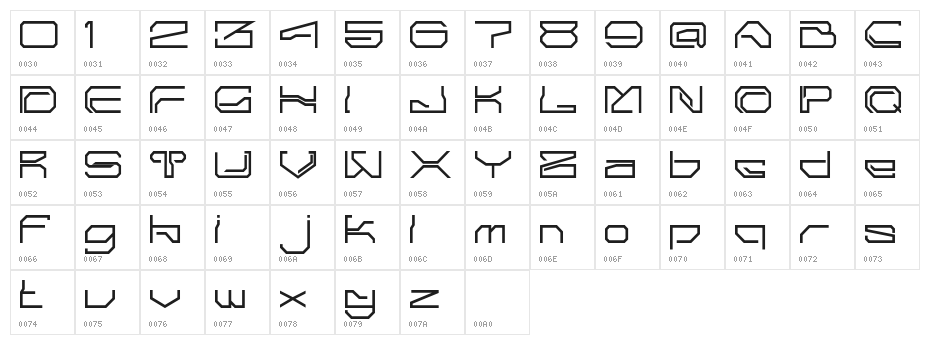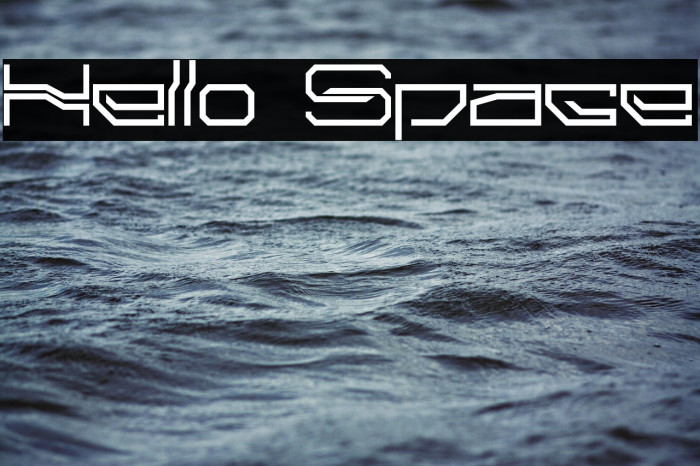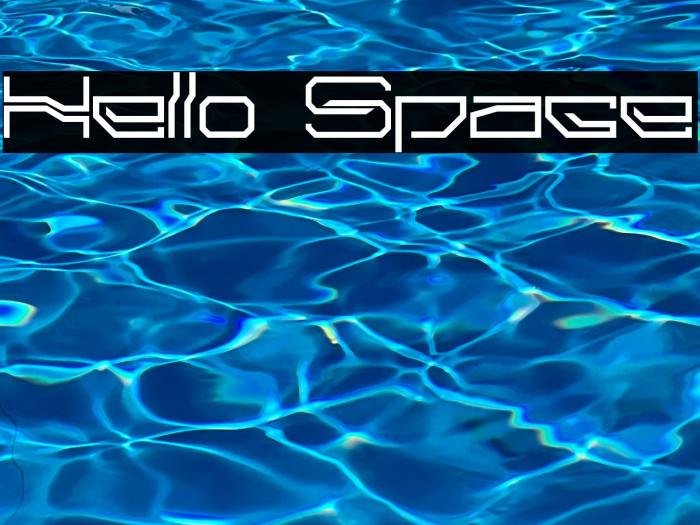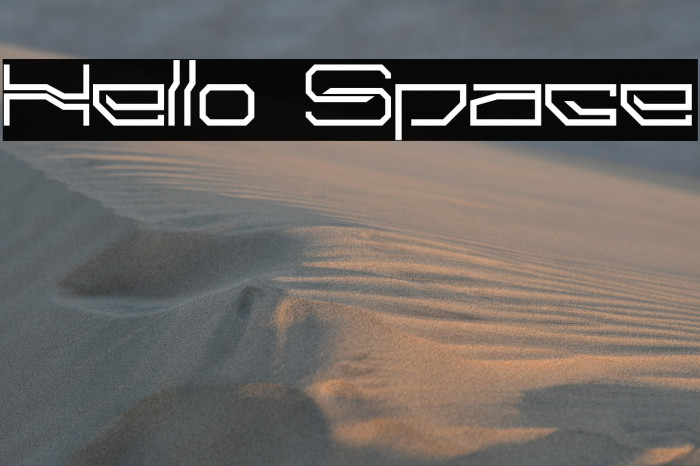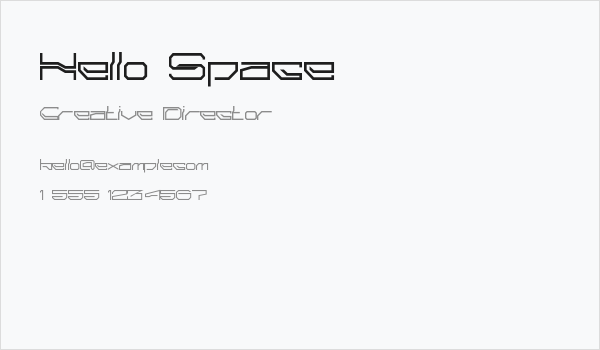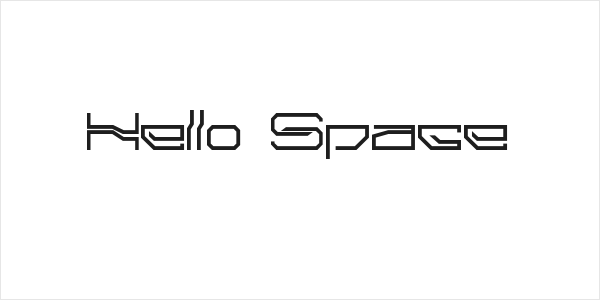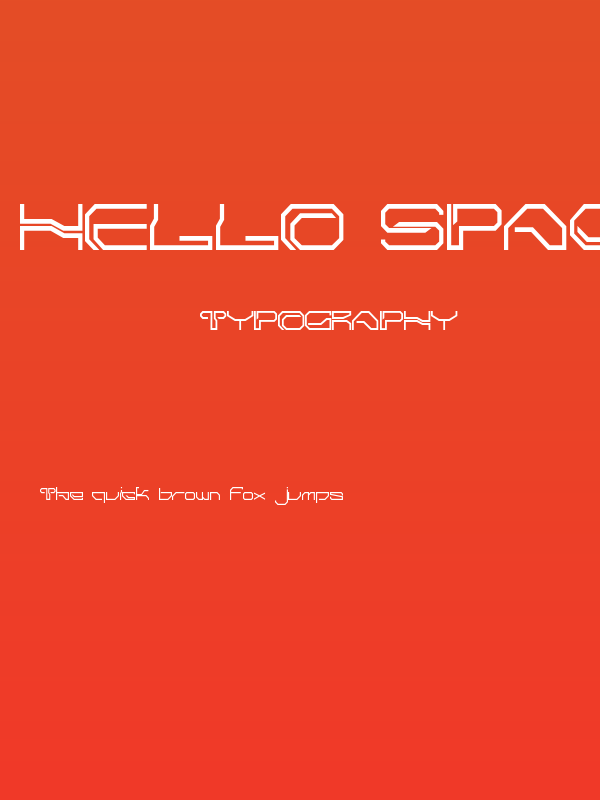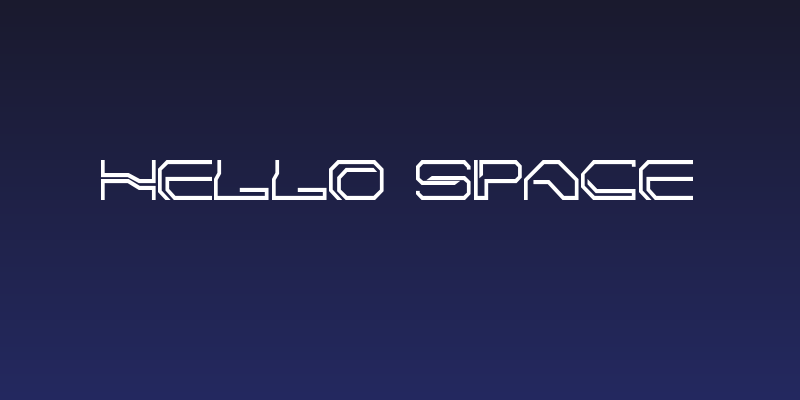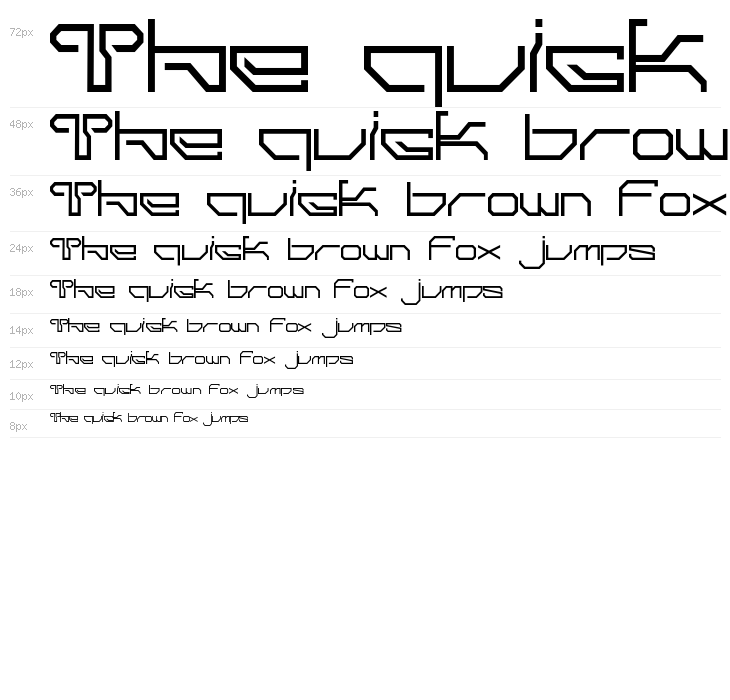
Hello Space Font
Hello Space Description
This font features a futuristic and geometric design, characterized by its angular and sharp-edged letterforms. The characters are constructed with a consistent line weight, giving it a uniform appearance. The design is reminiscent of digital or sci-fi aesthetics, with a modern and sleek look. The uppercase and lowercase letters maintain a cohesive style, with unique and distinct shapes that enhance its futuristic appeal. The numerals and special characters follow the same design principles, ensuring a harmonious overall appearance.